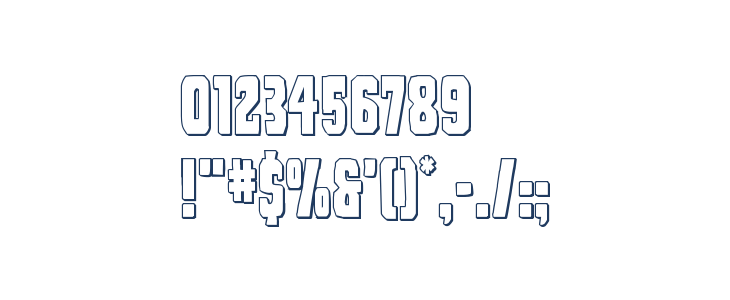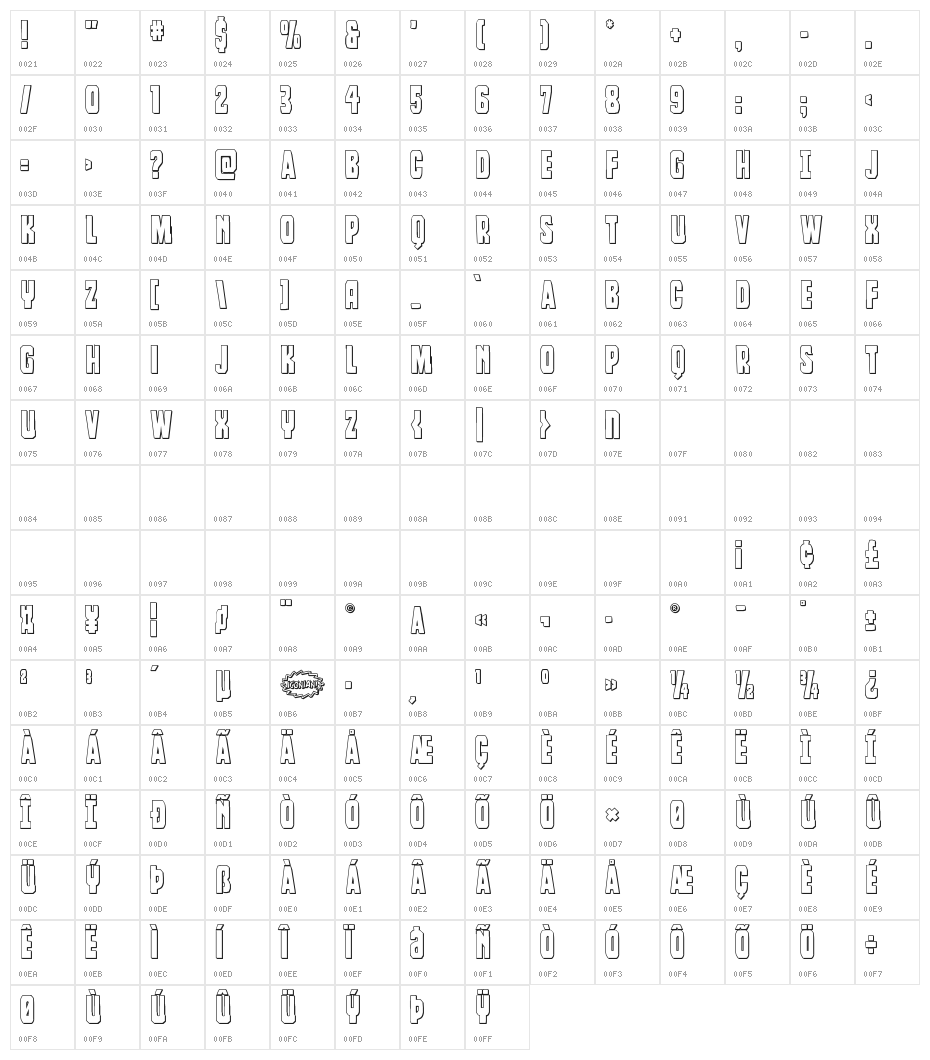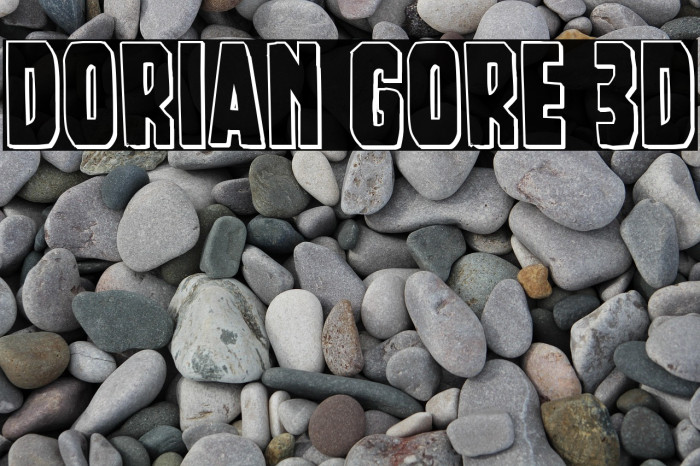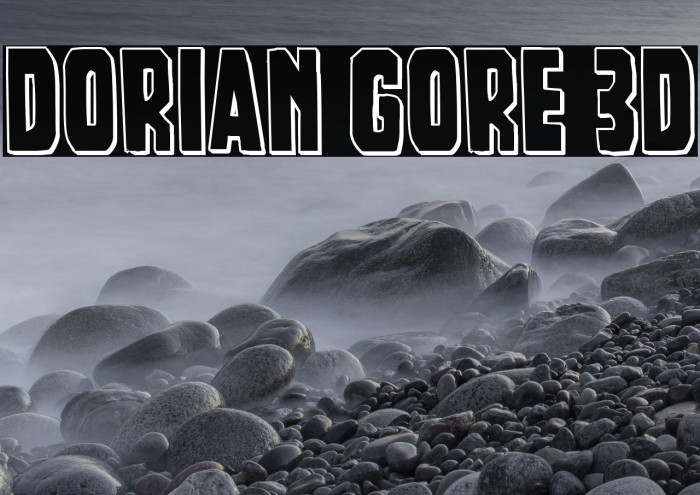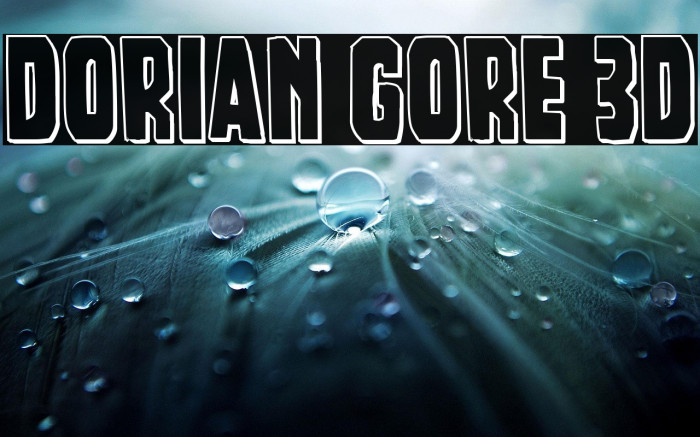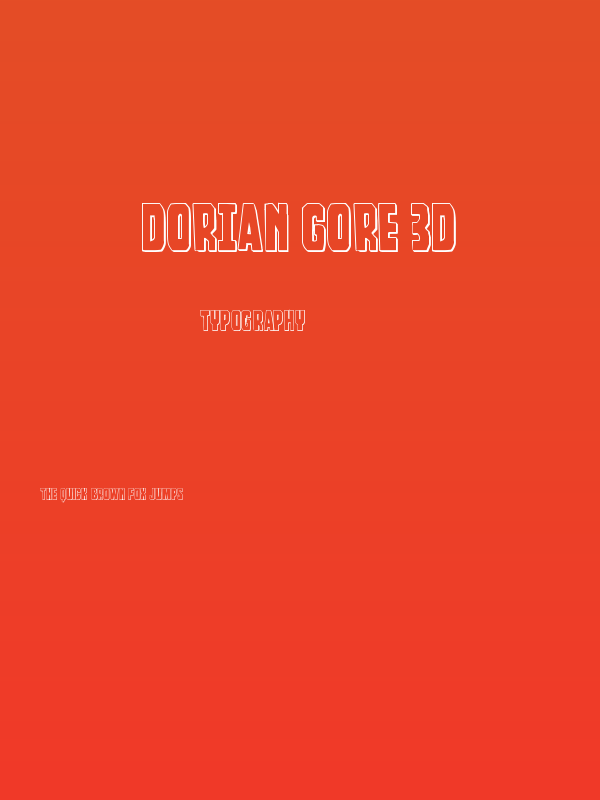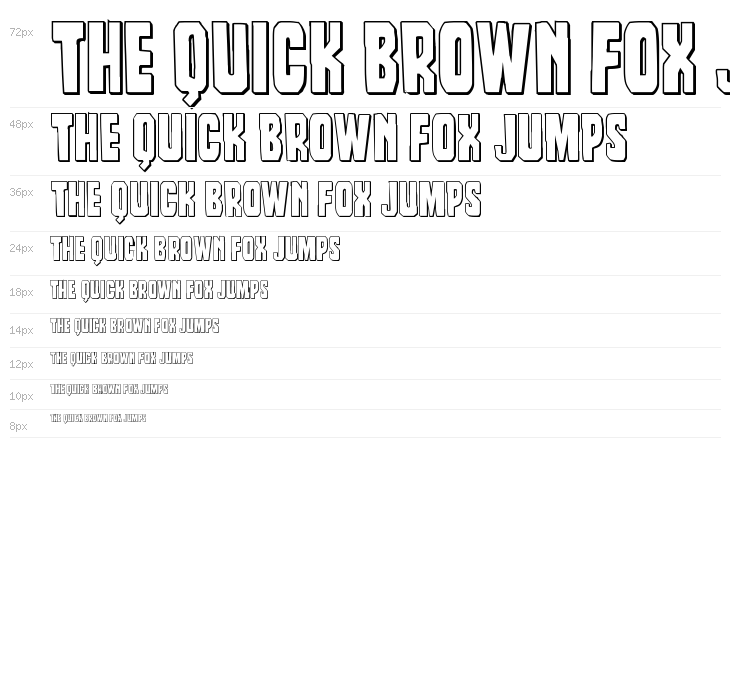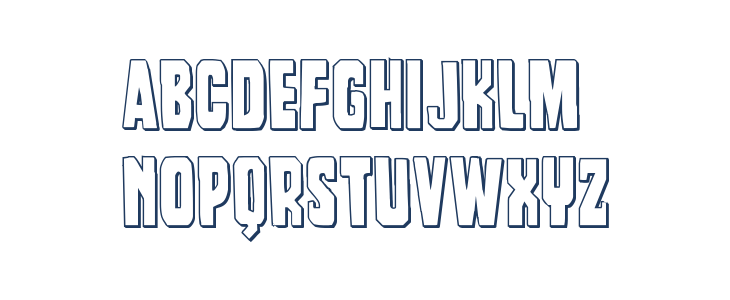
Dorian Gore 3D Font
Dorian Gore 3D Description
This font features a bold, three-dimensional design with a strong presence. The characters are outlined, giving them a distinct, shadowed appearance that adds depth and dimension. The uppercase letters are blocky and robust, with a uniform height and width that create a cohesive look. The numbers and special characters follow the same bold, outlined style, ensuring consistency across all glyphs. This font's unique 3D effect makes it stand out, making it ideal for eye-catching designs.
Proposed ProjectsIdeal for posters, headlines, logos, and any design requiring a bold, attention-grabbing font.